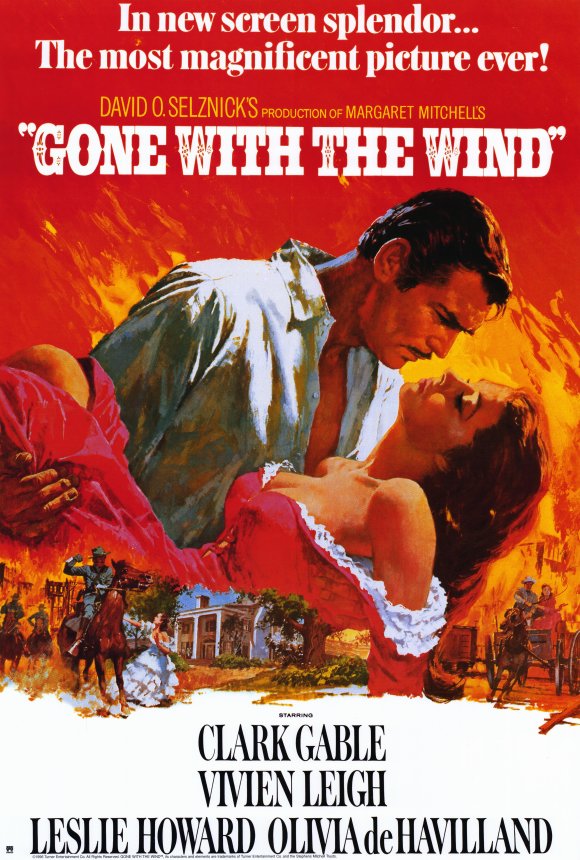
Gone with the Wind Font
Fonts in UseGone with the Wind is a 1939 American historical romance film based on the Pulitzer Prize-winning novel by Margaret Mitchell, set during the American Civil War and Reconstruction era. The film is widely considered a cinematic classic and won ten Academy Awards, including Best Picture.
The film "Gone with the Wind" title showcases a western-inspired slab serif font, reminiscent of typefaces like Egyptian ExtraBold Condensed by Jordan Davies or IFC Insane Rodeo by Anton Krylov. IFC Insane Rodeo can be downloaded for free from the Fonts Used Section.
Meanwhile, the credits for the cast and crew at the bottom of the poster use a font called Romantica by Cruz Fonts, which bears a striking resemblance to the aforementioned slab serif.